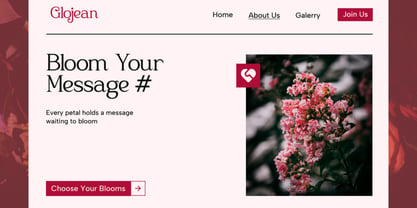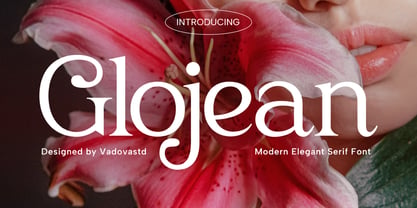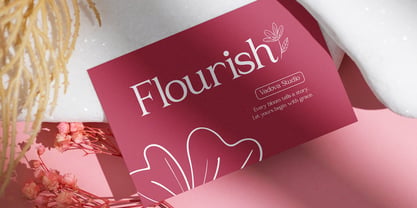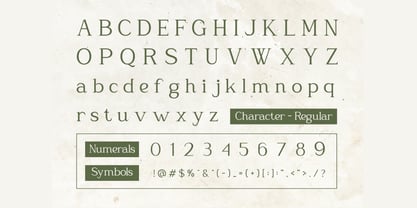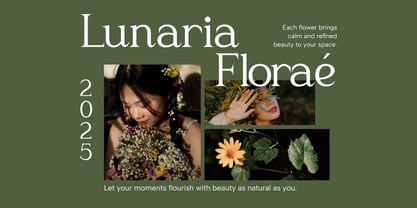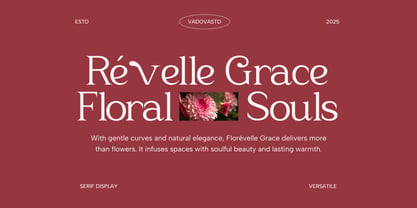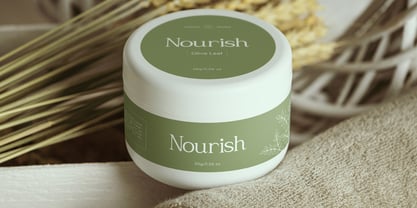
Glojean
by Vadova Std
The Glojean Font Family and published by Vadova Std. Glojean contains 1 styles. More about this family
Glojean Modern Elegant Serif Font is a high-contrast serif typeface featuring smooth organic curves, slender serifs, and a refined rhythm designed for both digital and print use. It combines classic elegance with modern aesthetics. Suitable for luxury branding, beauty packaging, fashion editorials, wedding stationery, skincare and perfume labels, beauty blogs, lifestyle magazines, boutique logos, cosmetic ads, soft minimal branding, portfolio covers, social media posts and quotes, and signature titles requiring a timeless yet contemporary appearance.